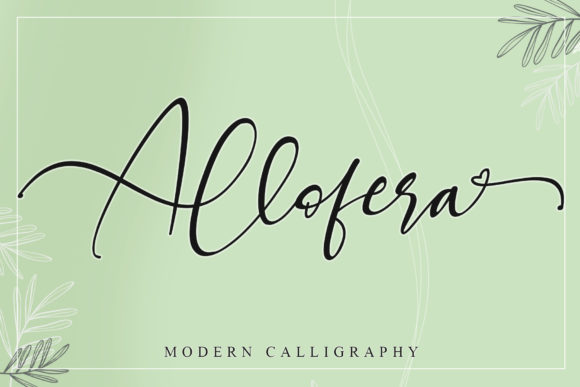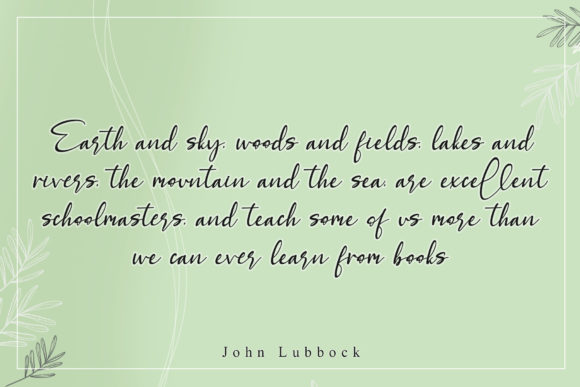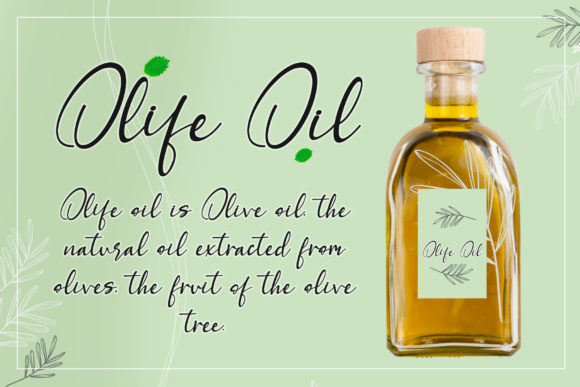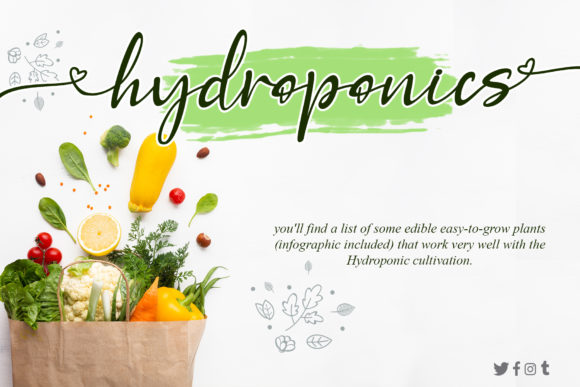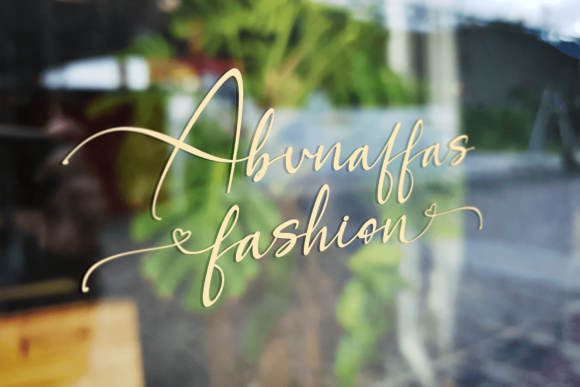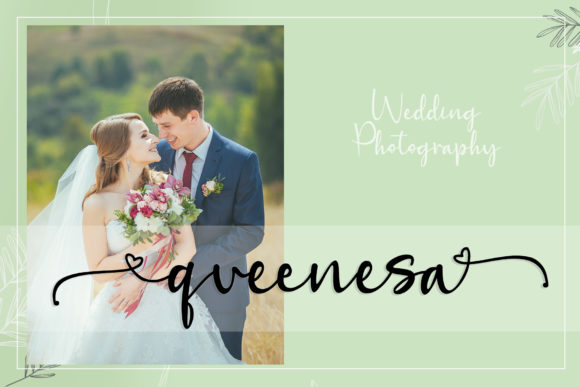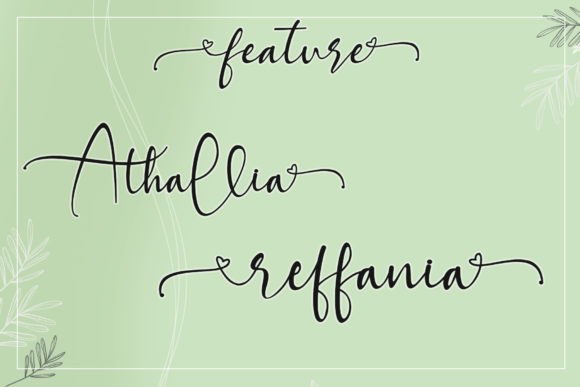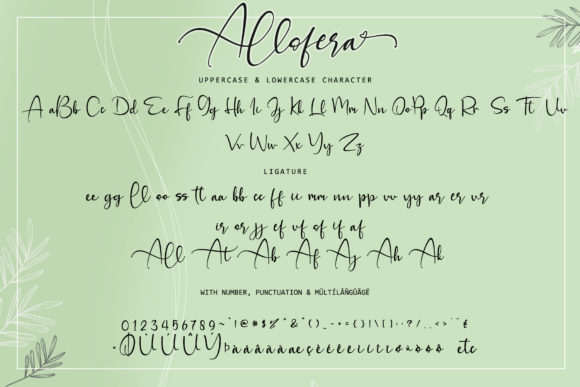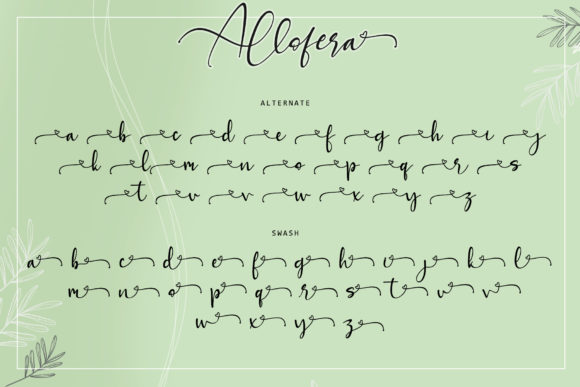
Allofera Font
About Allofera Font
Allofera is an incredibly beautiful and elegant handwritten font. It looks lovely on wedding invitations, thank you cards, quotes, greeting cards, logos, business cards and every other design which needs a handwritten touch.